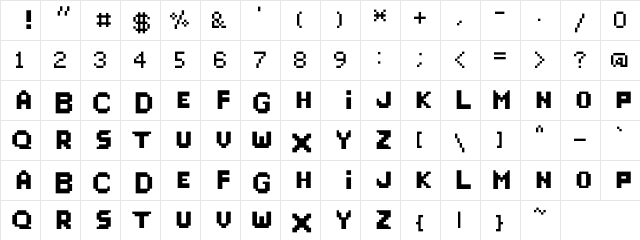
RaphaelZfont Regular
Design Context for RaphaelZfont Typeface
RaphaelZfont is a composed and adaptable typeface that performs quietly and consistently across a wide range of design contexts.